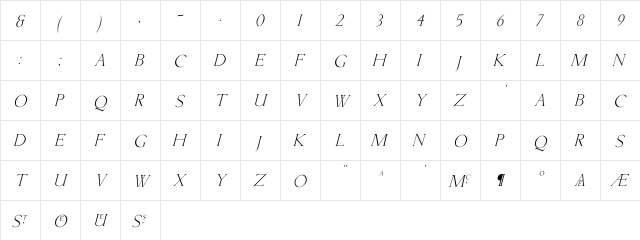
Lichtner Italic Italic
Design Context for Lichtner Italic Typeface
Lichtner Italic takes a measured approach to typography — its balanced proportions and neutral character make it a reliable workhorse for both digital and print work. The dynamic lean of this cut emphasises speed and emphasis in any layout.
Pro Tip: Try Lichtner Italic for annotation and caption copy alongside an upright companion — the contrast in angle creates a dynamic but ordered typographic system.